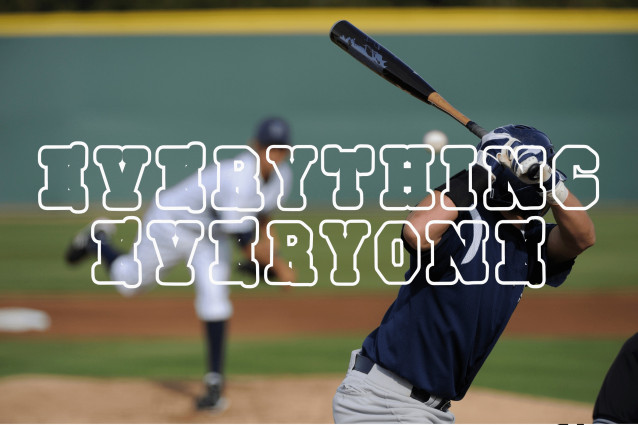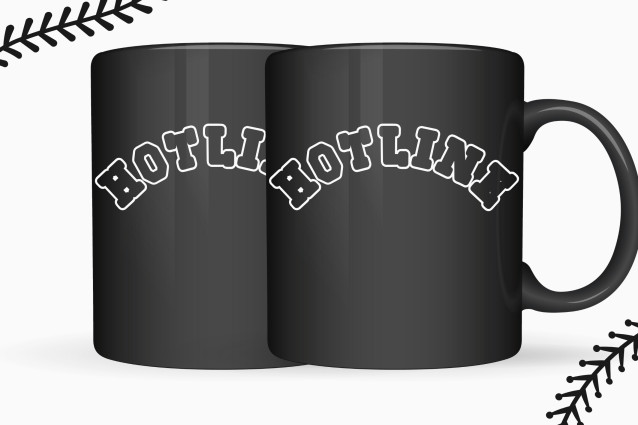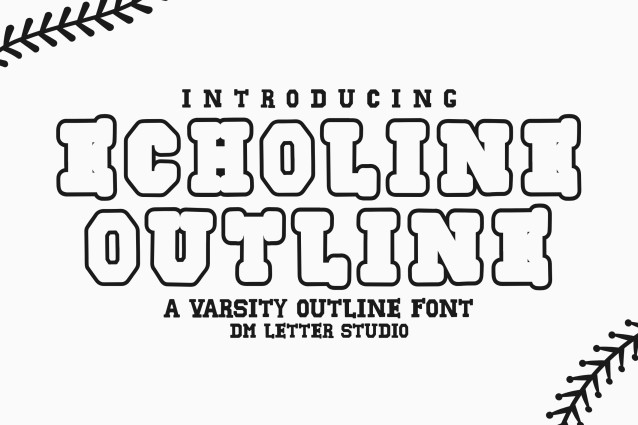
Echoline Outline Font
Echoline Outline is a refined and sophisticated serif font that brings a fresh twist to classic elegance. Featuring sleek outlines with high-contrast strokes and stylish proportions, this font is perfect for designers who want to add a touch of class and modernity to their headlines, logos, and editorial layouts.